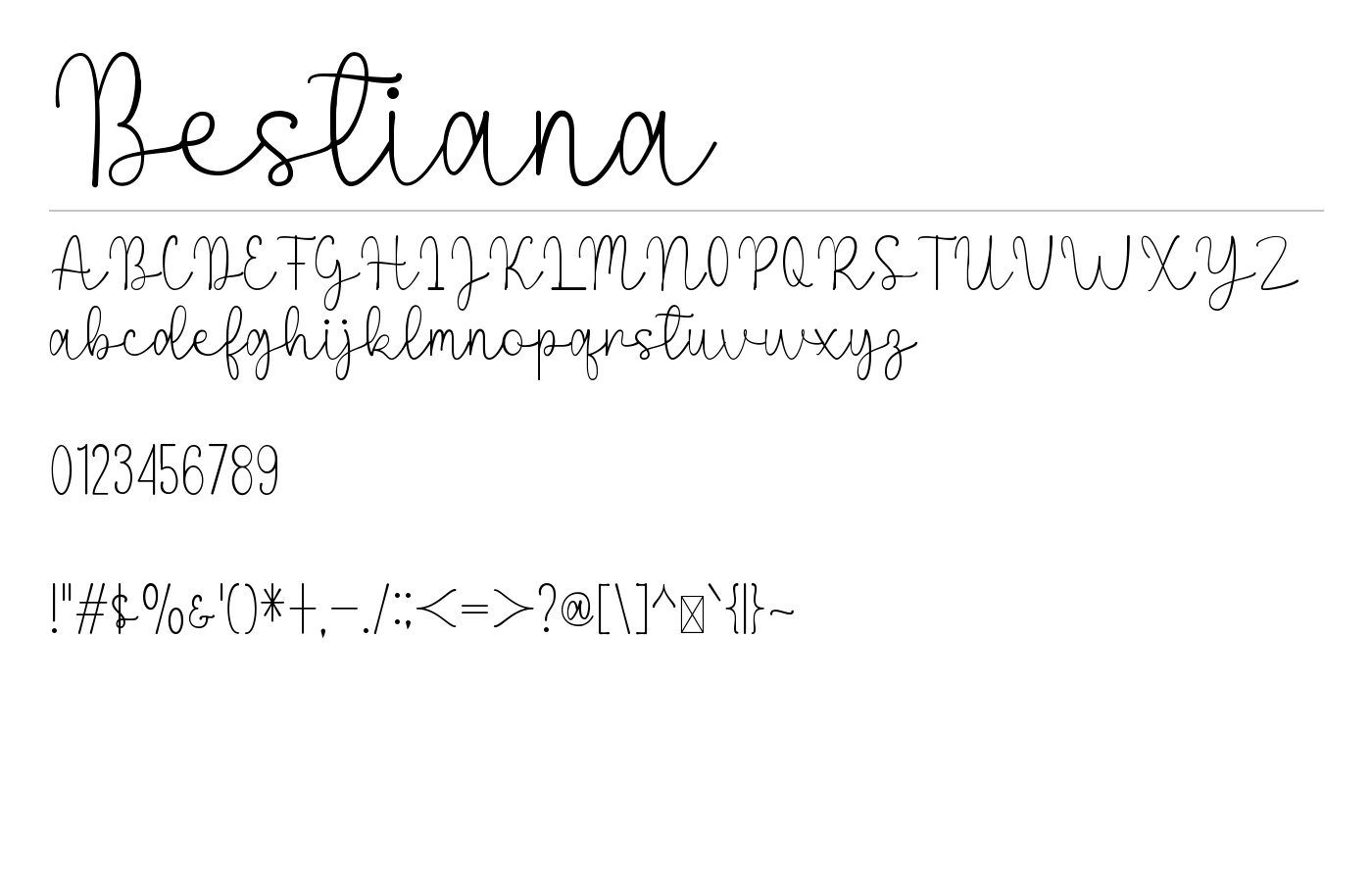
Bestiana is a delicate, handwritten script font characterized by its thin strokes and elegant, flowing letterforms that create a whimsical and charming feel. Its light weight and airy spacing make it perfect for creative, feminine, or playful branding, invitations, and decorative text where a personal, handcrafted touch is desired. This font works wonderfully in designs that seek to convey warmth, friendliness, and artistic flair.
Bestiana Font
About Bestiana Font
| Font family | Bestiana Font |
| Designer | Anjas Cov Cava Lera |